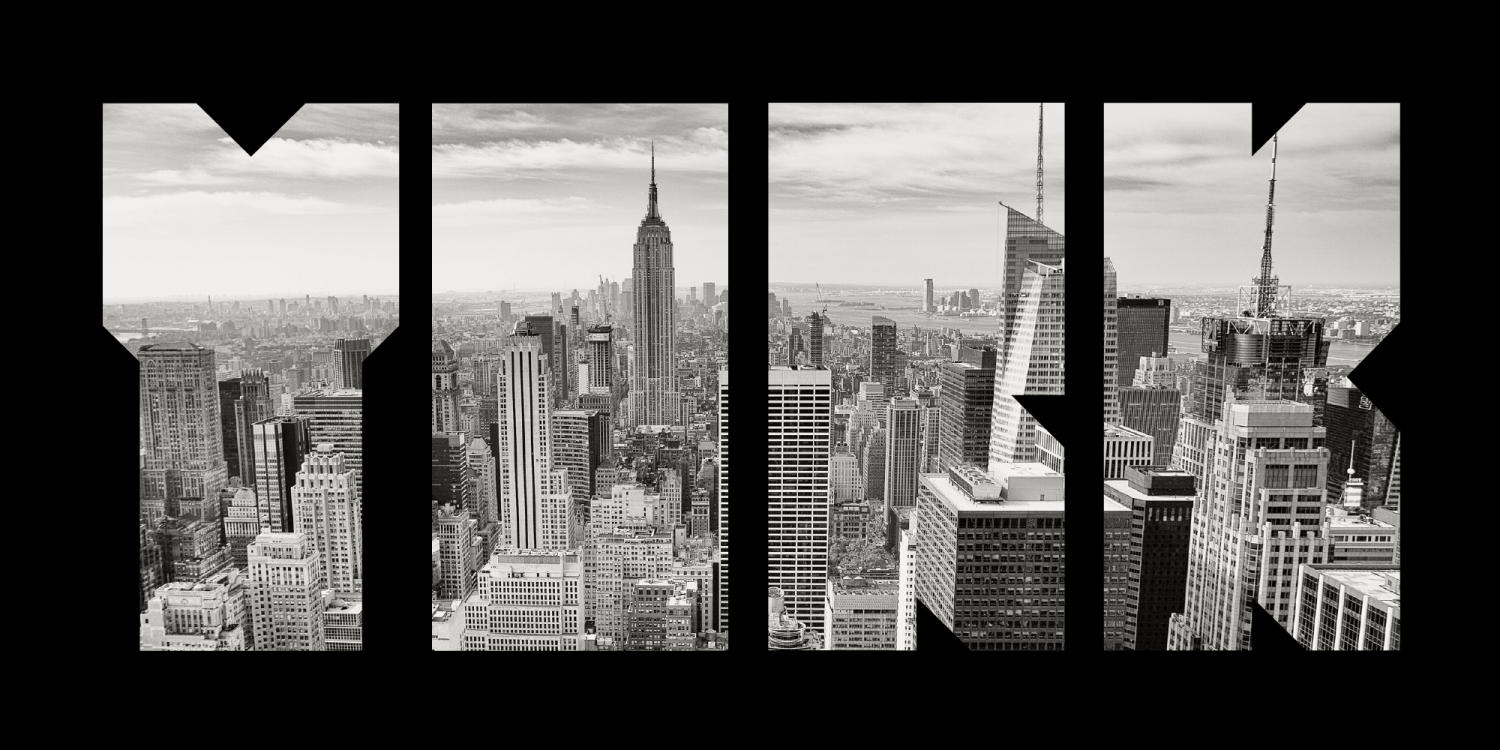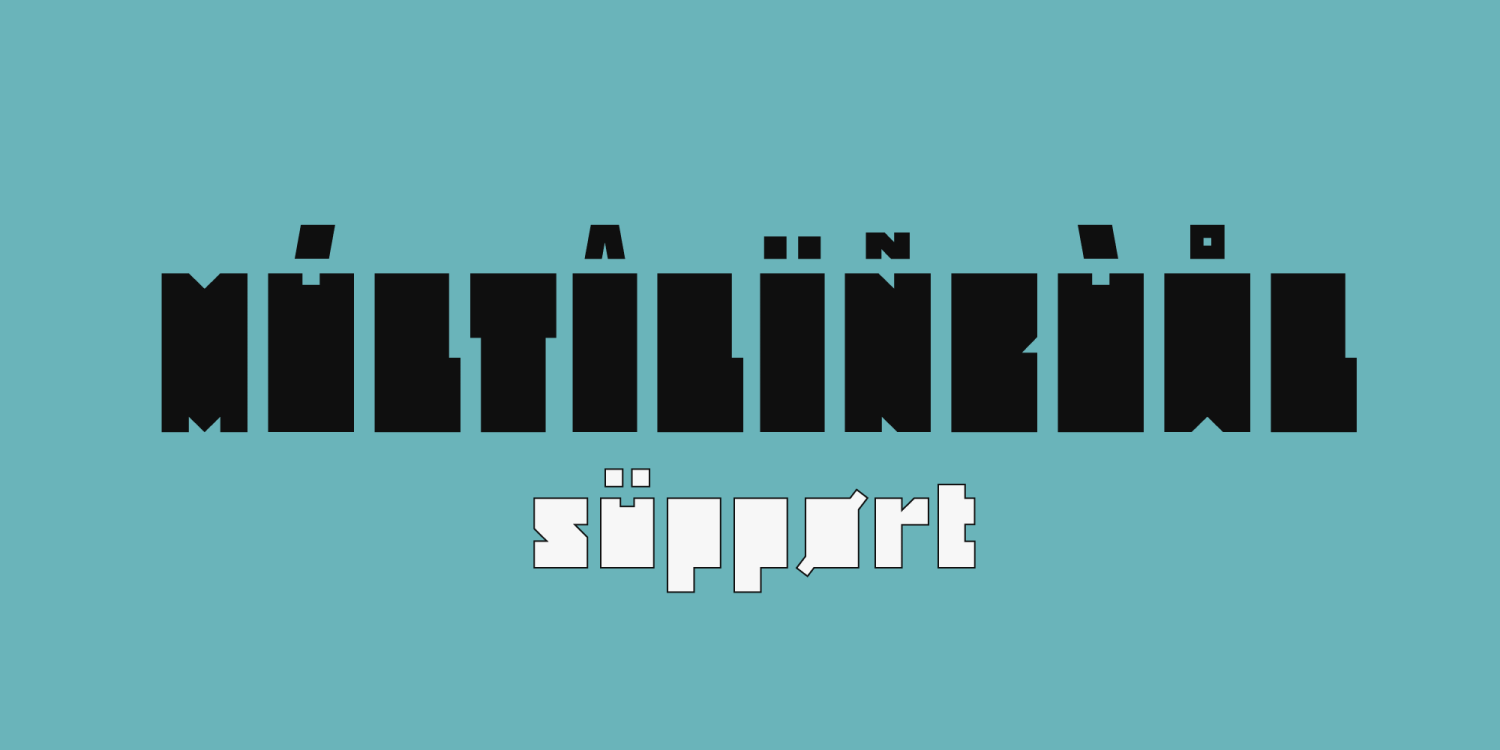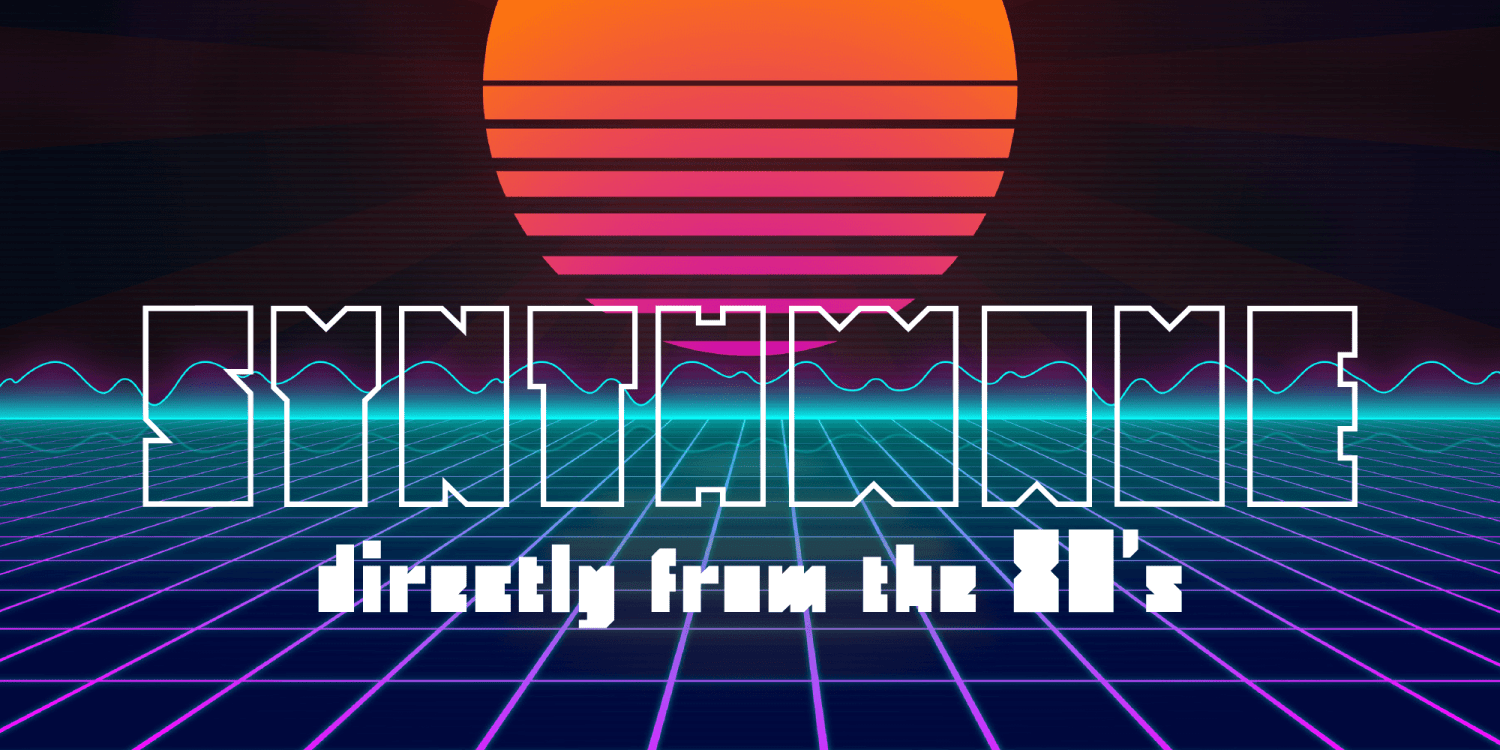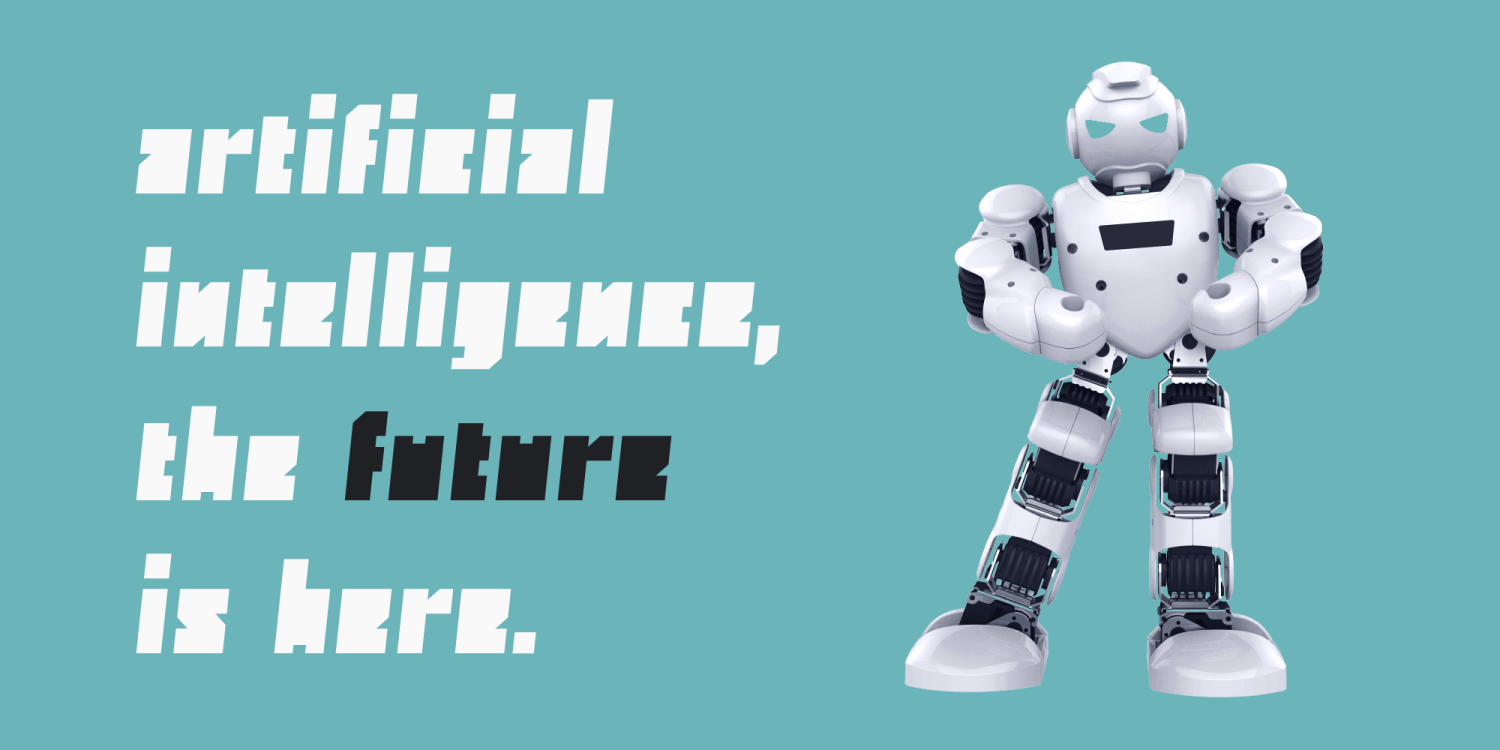
Monolith Pro is a futuristic heavy display that steals the show. This typeface is inspired by the popular Kubrick\’s movie 2001: A Space Odyssey, from which the iconic monolith scene. The glyphs, in fact, have been designed to fill the rectangular shape,…